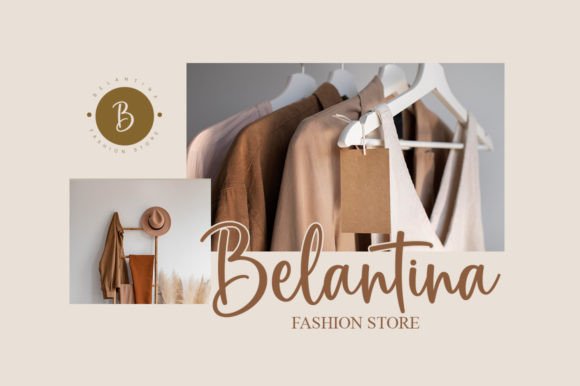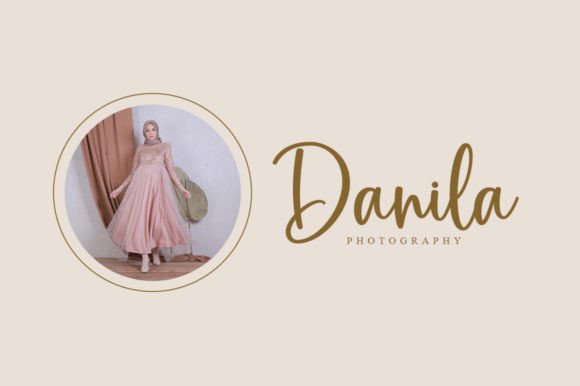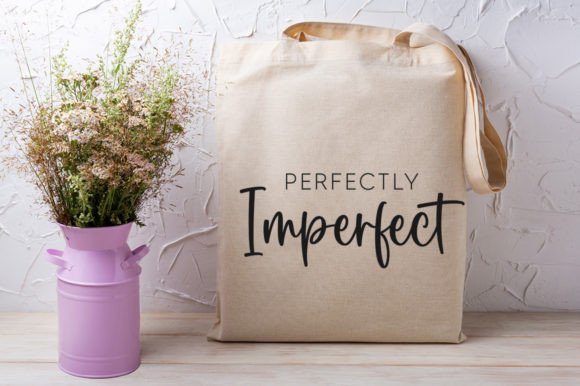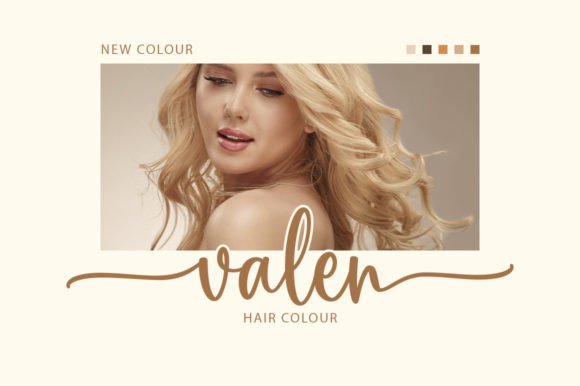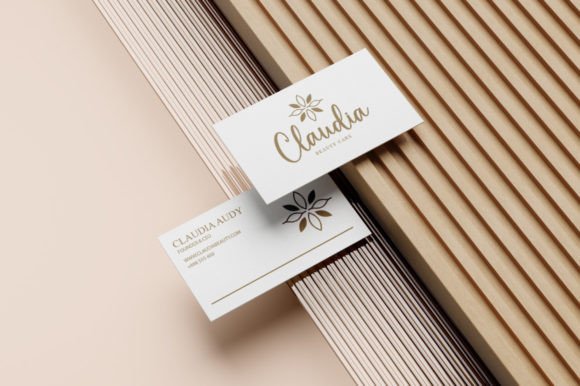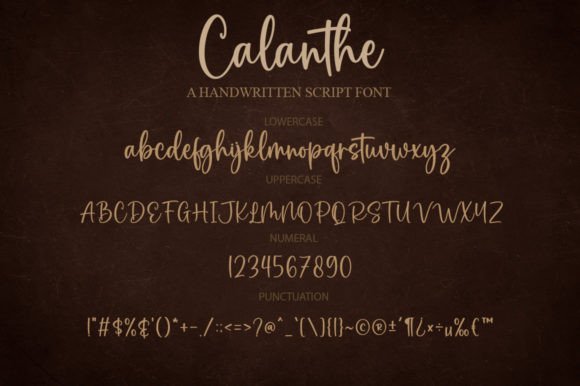
Introducing Calanthe Font: A Delicate and Elegant Handwritten Font
Are you a designer or crafter looking for a font that exudes elegance and sophistication? Look no further than Calanthe Font. This beautiful handwritten font is perfect for a wide range of design projects, from wedding invitations and stationery to branding and packaging. In this article, we’ll take a closer look at Calanthe Font and explore its features, benefits, and uses.
A Delicate and Elegant Font
Calanthe Font is a delicate, elegant, and flowing handwritten font that is sure to capture the attention of your audience. Its beautiful and well-balanced characters make it perfect for designs that require a touch of sophistication and refinement. Whether you’re creating a logo, brochure, or social media graphics, Calanthe Font is a great choice.
One of the standout features of Calanthe Font is that it is PUA (Private Use Area) encoded. This means that you can access all of the glyphs and swashes with ease, giving you greater flexibility and creative control over your designs. With PUA encoding, you can easily insert special characters, ligatures, and other decorative elements to add an extra touch of elegance to your designs.
Versatile and Adaptable
Calanthe Font is a versatile and adaptable font that matches a wide pool of designs. Whether you’re creating a modern and minimalist design or a more traditional and ornate one, Calanthe Font is a great choice. Its elegant and flowing script makes it perfect for designs that require a touch of sophistication and refinement.
Calanthe Font is perfect for designers and crafters who want to add a touch of elegance and sophistication to their designs. Whether you’re creating digital or print designs, Calanthe Font is a great choice. Its delicate and flowing script makes it perfect for a wide range of design projects, from wedding invitations and stationery to branding and packaging.
Benefits of Using Calanthe Font
So why choose Calanthe Font for your design projects? Here are just a few benefits of using this beautiful handwritten font:
• Elegance and sophistication: Calanthe Font adds a touch of elegance and sophistication to any design project.
• Versatility: Calanthe Font matches a wide pool of designs, making it perfect for a wide range of design projects.
• Easy to use: Calanthe Font is PUA encoded, making it easy to access all of the glyphs and swashes.
• High-quality design: Calanthe Font is a high-quality design that is perfect for professional designers and crafters.
Uses of Calanthe Font
So what can you use Calanthe Font for? Here are just a few ideas:
• Wedding invitations and stationery: Calanthe Font is perfect for creating beautiful and elegant wedding invitations and stationery.
• Branding and packaging: Calanthe Font is a great choice for branding and packaging designs that require a touch of sophistication and refinement.
• Digital designs: Calanthe Font is perfect for digital designs, such as social media graphics, blog headers, and email newsletters.
• Print designs: Calanthe Font is also perfect for print designs, such as brochures, flyers, and posters.
In conclusion, Calanthe Font is a beautiful and elegant handwritten font that is perfect for designers and crafters who want to add a touch of sophistication and refinement to their designs. With its PUA encoding, versatile design, and high-quality characters, Calanthe Font is a great choice for a wide range of design projects. Whether you’re creating digital or print designs, Calanthe Font is sure to impress.